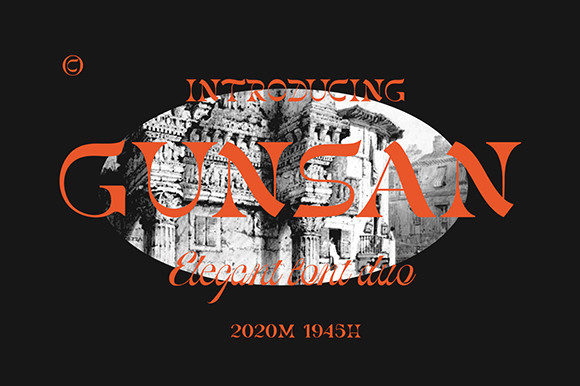
In a world where individuality reigns supreme, where creativity breaks the chains of the ordinary, there lies a font, a masterpiece of digital artistry, ready to transform your designs into captivating masterpieces - introducing Gunsan Font, a display font like no other.
With its captivating curves and dynamic lines, Gunsan Font is not just a font; it's an experience. Its strokes, meticulously crafted to strike a balance between thin and thick, blend seamlessly, creating a visual harmony that dances before your eyes. The varied character widths add a touch of playfulness, ensuring that each word you type becomes a work of art.
Unlike other fonts that fade into the background, Gunsan Font demands attention. It's a statement, a declaration of your unique style. Whether you're creating logos that leave a lasting impression, designing social media posts that captivate your audience, or crafting invitations that hint at the magic within, Gunsan Font is your perfect partner.
It's a font that speaks to the creative soul, inviting you to unleash your imagination and explore the boundless possibilities of visual expression. Each character, meticulously designed by the talented Damelev, carries a story, a hidden message, waiting to be discovered by those who dare to look beyond the surface.
With Gunsan Font, you're not just downloading a font; you're embarking on a journey of creative liberation. You're unlocking the power to transform your designs into mesmerizing experiences that resonate with your audience. So, embrace the allure of Gunsan Font, let your creativity soar, and watch as your designs transcend the ordinary and enter the realm of the extraordinary.